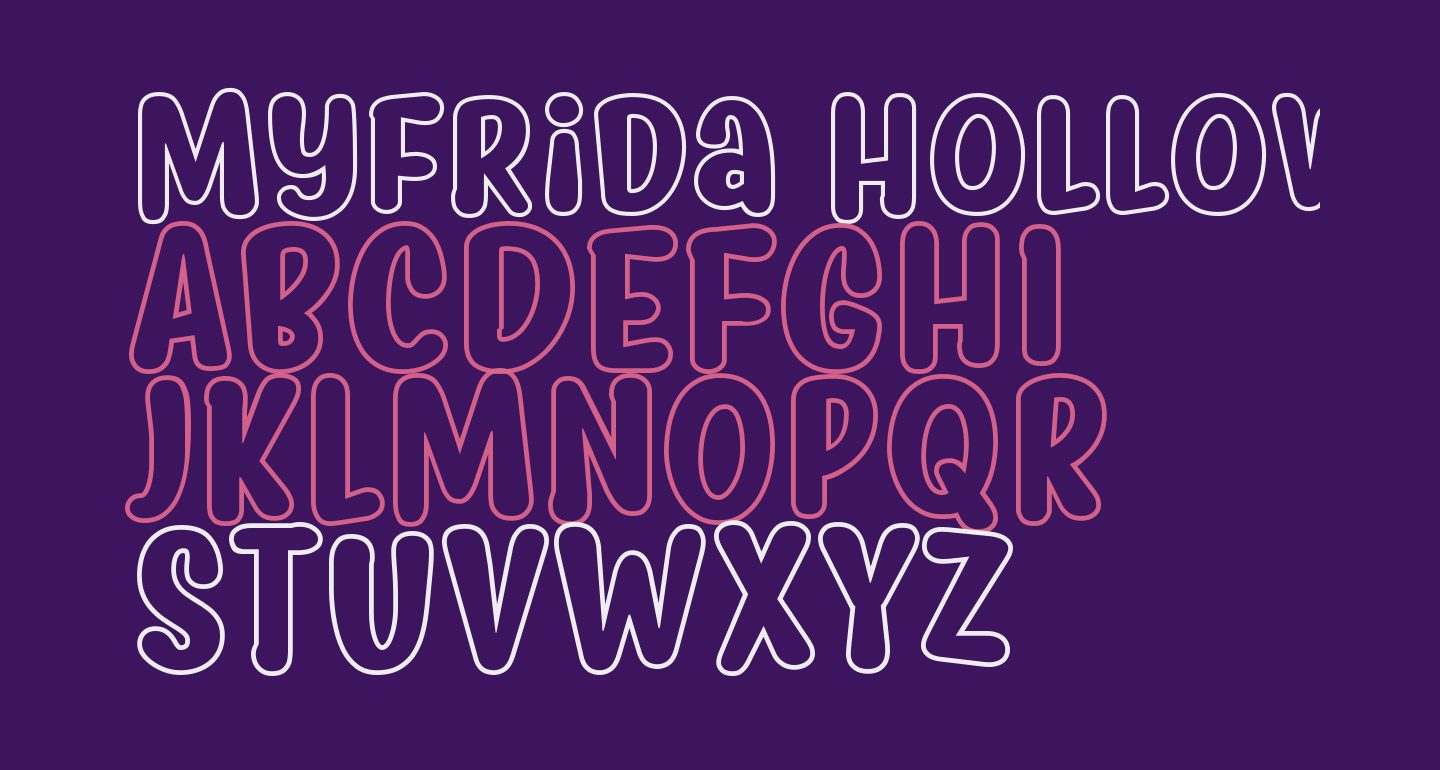
What's The Latest Trend In Fonts With Hollow Letters?
In the world of typography, there’s always something new and exciting happening. In the last few years, fonts with hollow letters have become increasingly popular. Whether you’re looking to design a logo, create a website, or even just spruce up a poster, the right font can make the difference between an eye-catching design and one that’s totally forgettable.
What Are Fonts with Hollow Letters?
Fonts with hollow letters, also known as “hollow fonts,” are a variation on the traditional typeface. Instead of being made up of solid shapes, these fonts are made up of hollow shapes. This gives the font a unique look that can be used to create a range of effects.
Hollow fonts are particularly popular for text-based logos and designs. The simple shapes and contrast between light and dark can be used to create a memorable look. The font can be used to create a feeling of weightlessness, suggesting speed or lightness. Or, it can be used to create a bold, modern look.
Where to Find Fonts with Hollow Letters
How to Use Fonts with Hollow Letters
Fonts with hollow letters can be used in a variety of ways. They can be used in logos and branding, posters, websites, and other digital designs. When used correctly, the font can create a bold, modern look that’s sure to stand out.
When using hollow fonts, it’s important to consider the colors you’ll be using. The contrast between light and dark can help your design stand out, but too much of a contrast can make it look garish. Consider choosing colors that will complement each other and create a balanced look.
It’s also important to consider the size and placement of the font. Too small, and the font won’t be legible. Too large, and it can look awkward. Experiment with different sizes and placements until you find something that works for your design.
Fonts with hollow letters are becoming increasingly popular in the world of typography. They can be used to create a bold, modern look that’s sure to stand out. When using these fonts, it’s important to consider the colors, size, and placement of the font to ensure a balanced, professional design.